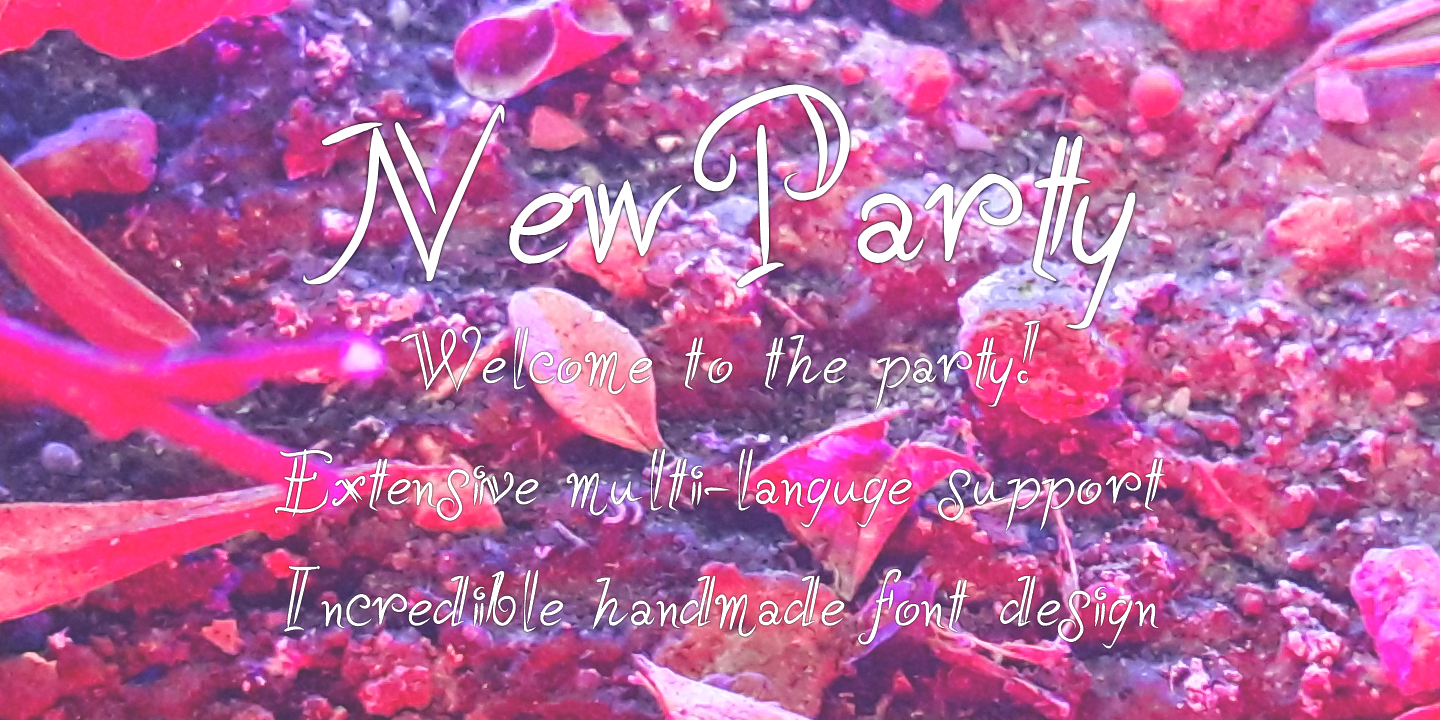
NewParty, a loose outlined font
NewParty an elegant, almost italic, script font with curly lines font created by Andrei Olaru and published by Kreativ Font. Featuring 3 styles (Light, Regular and Bold) together with extensive multilingual support, NewParty font can help you design party announcements, children related graphics, wedding cards etc.
Glyphs: Over 400 - Basic Latin, Diacritics, Alternates, Currency